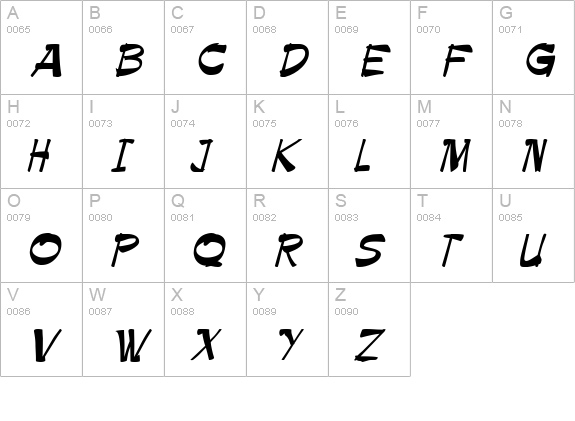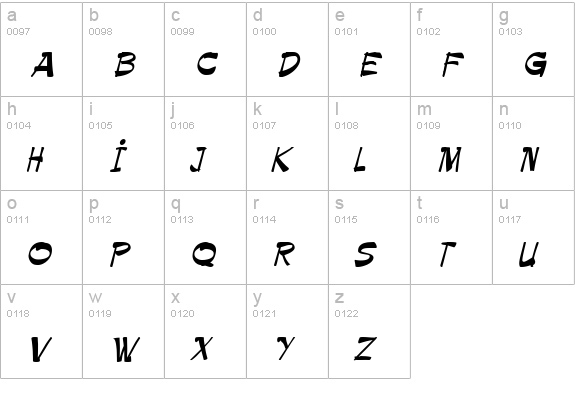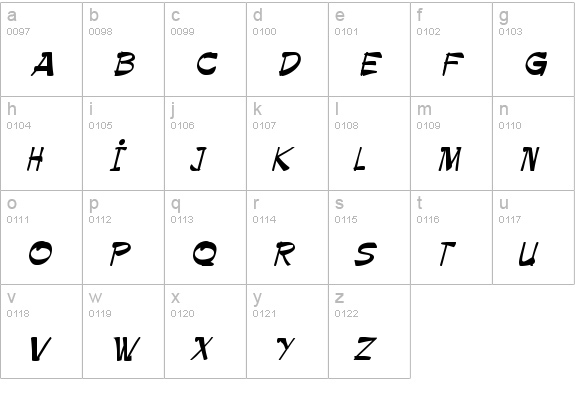
TR Palette Font Details
TR Palette font is a beautifully crafted typeface that exudes elegance and sophistication. With its sleek lines and modern design, this font is perfect for a wide range of projects, from branding to editorial design. The delicate curves and unique character shapes of TR Palette font make it stand out from the crowd, adding a touch of creativity to any text. The best part? TR Palette font is available for free download at FontsMarket.com. This means that you can easily access this stunning font and use it in your projects without any cost. Whether you're working on a personal project or a client's design, TR Palette font will elevate your work to the next level with its timeless appeal and versatility. Don't miss out on the opportunity to enhance your designs with TR Palette font. Download it for free today and experience the beauty and sophistication that this font brings to your work.